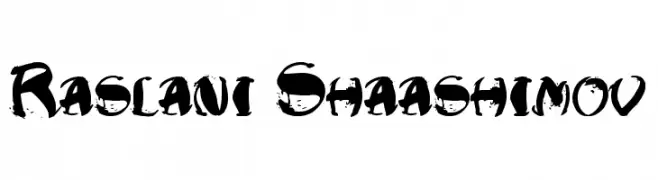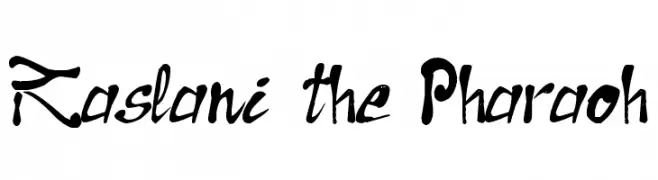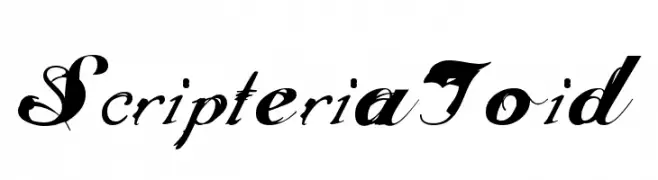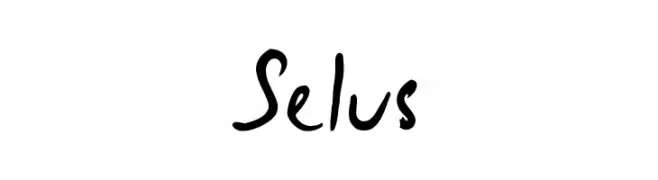
( by Serge Paulus http://www.serge-paulus.be )
A playful, handwritten font with dynamic strokes and medium contrast.
( Fonts by Varian`s Dreamfonts )
A playful, handwritten-style font with bold, dynamic strokes.
( Fonts by Sacred Nipple - Brode Vosloo )
An elegant script font with flowing, cursive letterforms and ornate details.